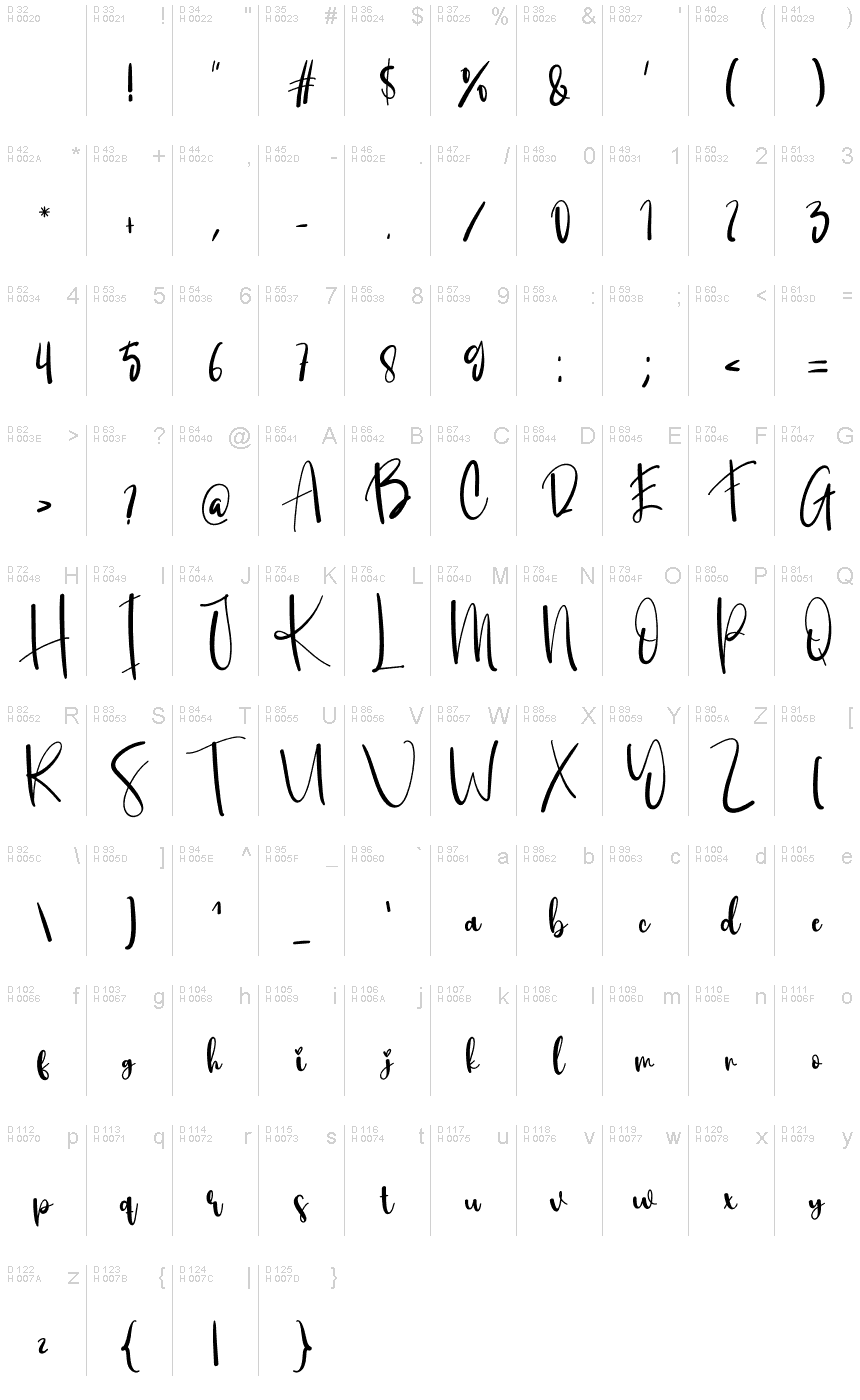
Highland
Highland, a captivating handwritten font by Scratchones, exudes an artistic charm with its semi-light weight. Its fluid strokes and organic feel make it perfect for projects that require a touch of elegance and sophistication.
Ideal for branding luxurious fashion labels or designing wedding invitations, Highland adds a personalized and intimate touch to any creative endeavor. Its versatility allows it to seamlessly fit into diverse projects such as logo designs, packaging, social media graphics, or even book covers.
Elevate your creations with the mesmerizing allure of Highland - where refinement meets individuality.